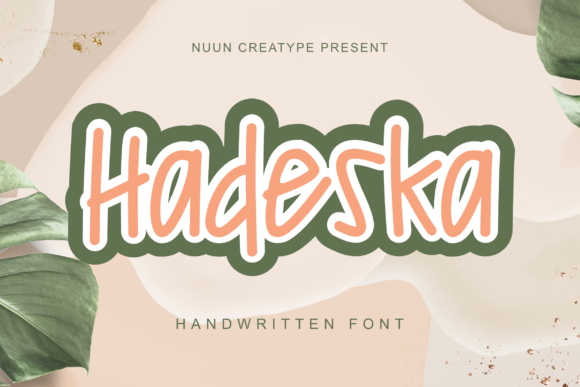
Journey into the enchanting world of Hadeska Font, where whimsical and playful letters dance before your eyes. This enchanting script, crafted by the masterminds at Nuun Creatype, is the epitome of creativity and joy. Whether you're seeking to awaken the inner child within your designs or ignite the imagination of young learners, Hadeska Font holds the key.
With its delightfully quirky and heartwarming curves, Hadeska Font possesses a captivating charm that will make your creations stand out from the mundane. Its natural and effortless style seamlessly adapts to a myriad of design endeavors, making it the perfect companion for invitations, branding, packaging, and even heartfelt messages.
Prepare to be mesmerized as Hadeska Font transforms your digital canvas into an enchanting wonderland. Its versatility knows no bounds, unleashing endless possibilities for those who dare to dream. So, embrace the magic of Hadeska Font today and let your imagination soar to new heights!